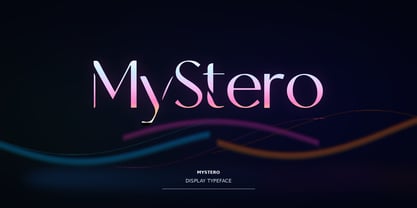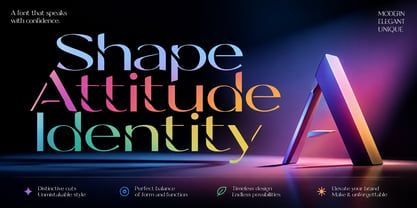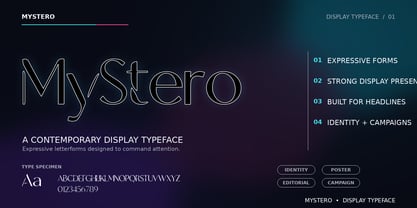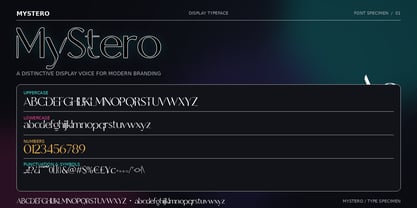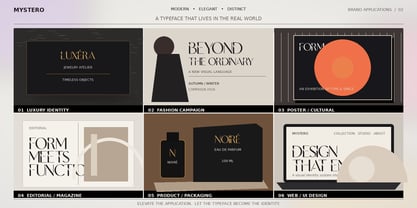
MyStero
by Zefrar
The MyStero Font Family was designed by Hamid Azzafrar and published by Zefrar. MyStero contains 1 styles. More about this family
MyStero is a contemporary high-contrast display serif that blends timeless elegance with a distinctive modern edge. Inspired by classic editorial typography and refined through subtle stencil-inspired cuts, it delivers a bold, luxurious presence while maintaining exceptional clarity and balance.
Designed for branding, fashion, packaging, magazines, headlines, logos, and premium visual identities, MyStero combines sculpted curves, crisp geometric details, and dramatic contrast to create typography that is both sophisticated and memorable. Every glyph is carefully crafted to ensure harmony across uppercase, lowercase, numerals, punctuation, currency symbols, ligatures, and extended Latin characters.
Elegant without feeling traditional and modern without sacrificing character, MyStero is designed to make every word stand out with confidence and style.